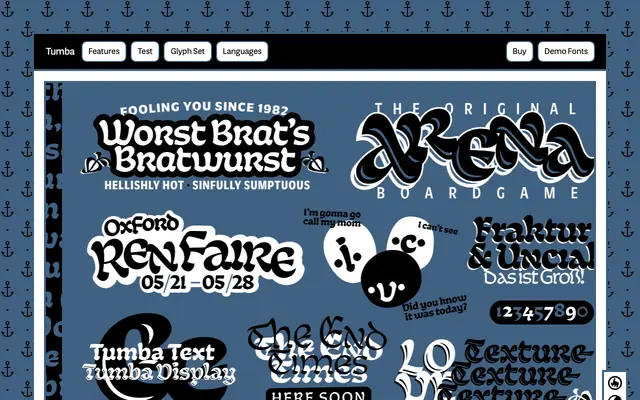
Tumba
Manic Type · Jamie Chang · 2022
A blackletter face by Jamie Chang that fuses uncial and fraktur calligraphic traditions into a single contemporary family with eleven styles.
Released in 2022, it blends the rounded open letterforms of uncial script with the angular formality of fraktur, offering opentype alternate sets for each influence so designers can shift the character between the two. Seven weights from Light to Black Inline sit in the main display family, while Tumba Text provides a companion subfamily at smaller sizes. The glyph set covers 292 languages across Latin Extended.
Tumba is explicitly classified as blackletter by the foundry, drawing on both uncial and fraktur calligraphic traditions with opentype alternate sets for each influence.